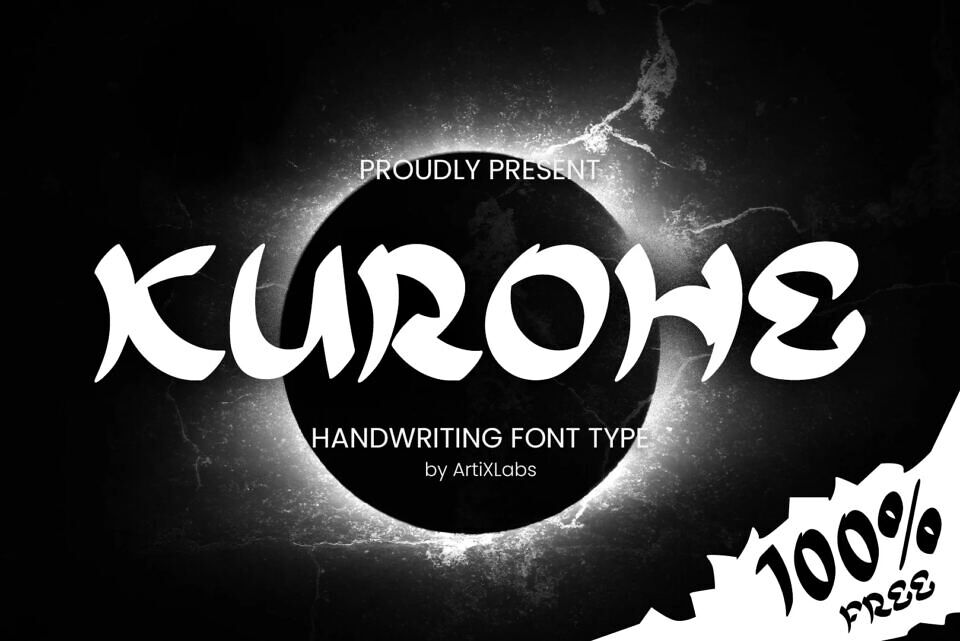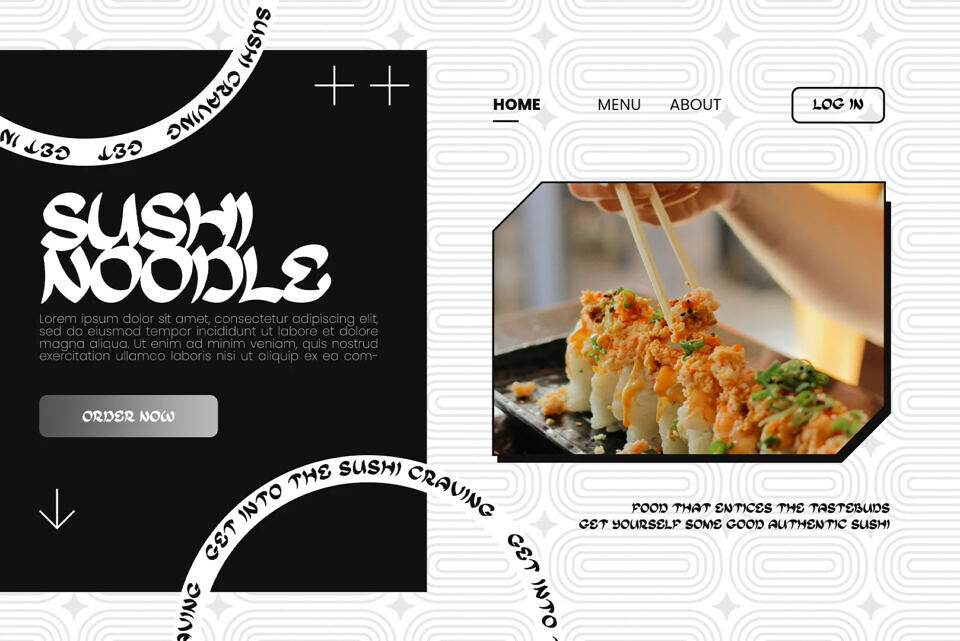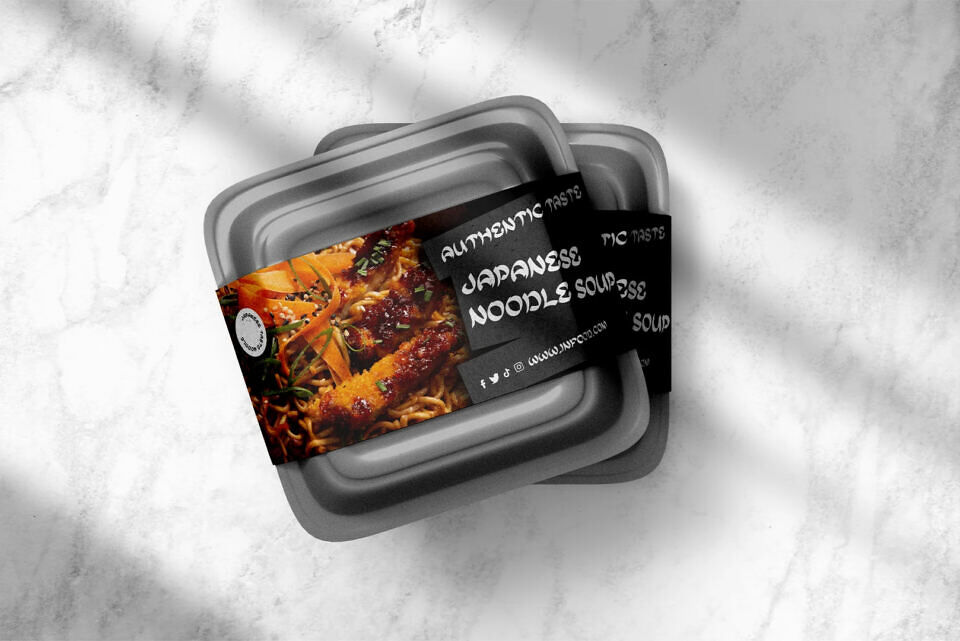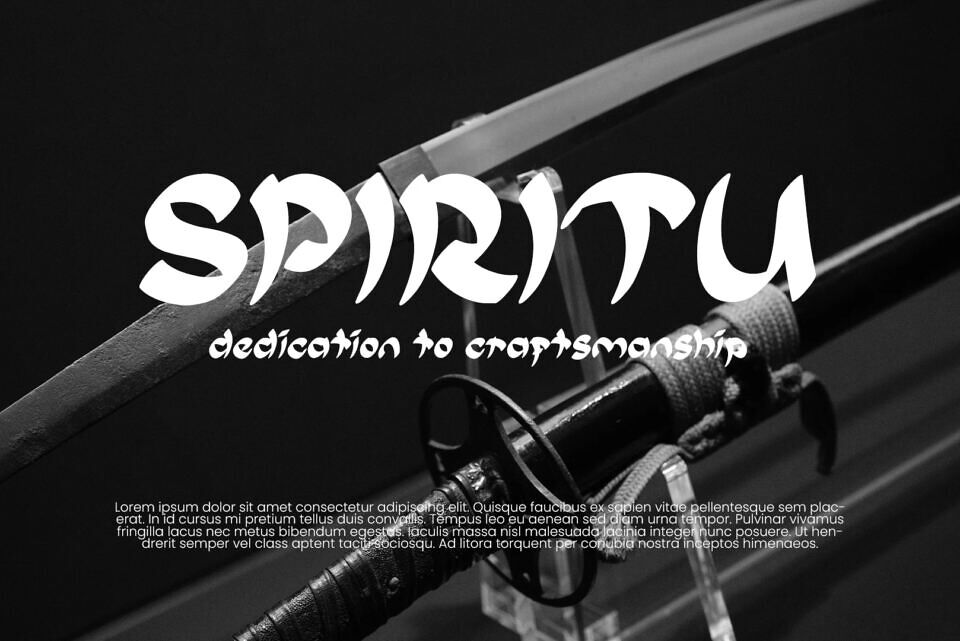
Kurohe Font
Introducing Kurohe, a Calligraph Japan Syle Font by ArtiX Labs. This Font can be used for any variety of purposes, such as: Event, Social Media Feed,Flyer, Packaging Products, Logo Type, Branding, T-Shirt Design, Website/Blog, Headline Magazine, Brochures and also can be used for other purpose.